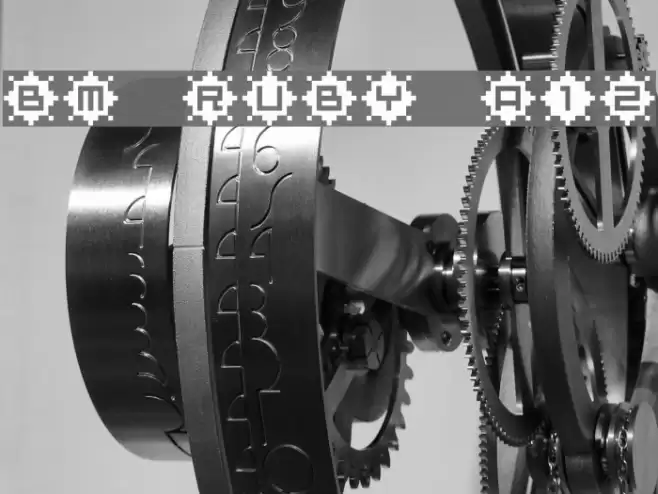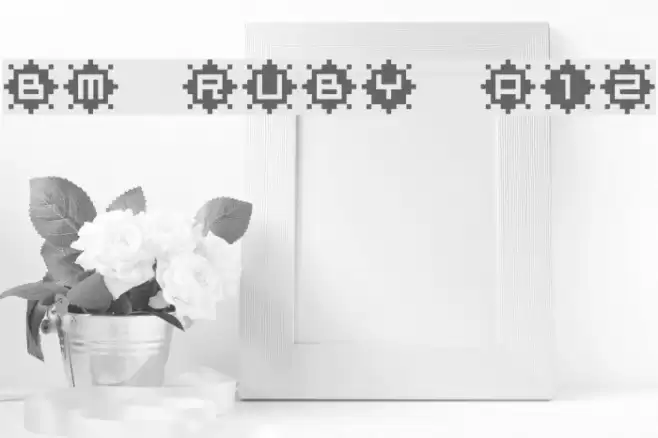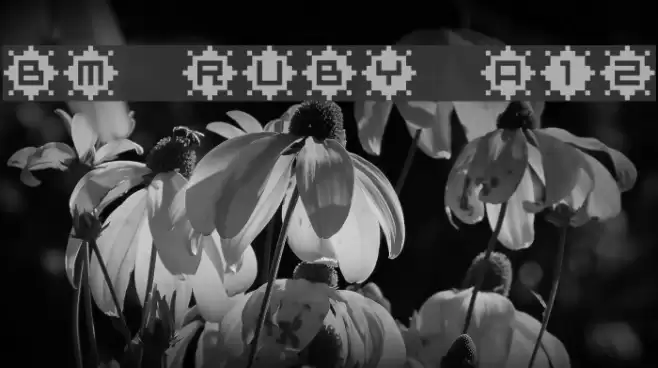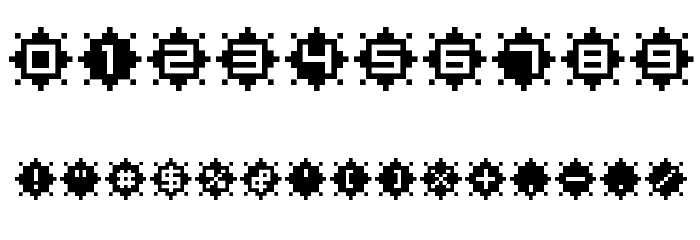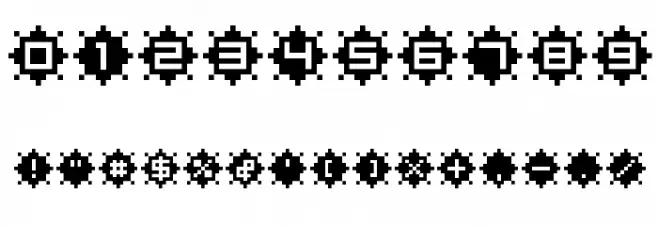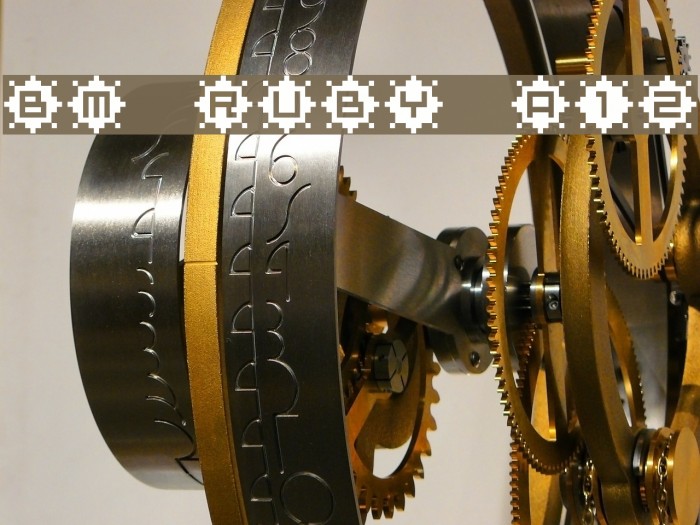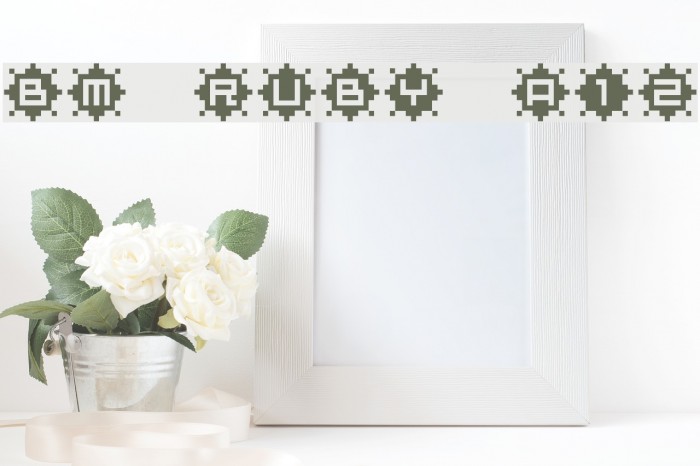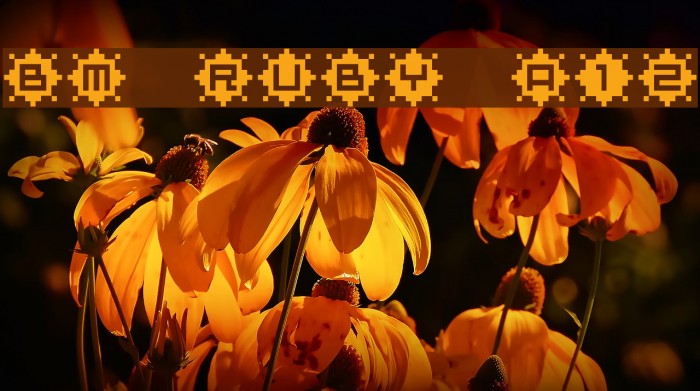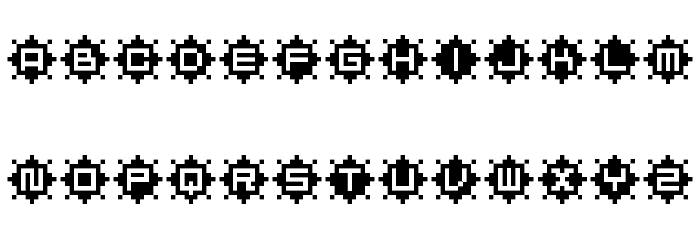
BM ruby A12 Font
BM ruby A12 Description
This font is a pixelated, decorative style that features characters enclosed within a circular, gear-like border. Each letter, number, and symbol is centered within this border, giving it a unique, mechanical appearance. The characters themselves are bold and blocky, reminiscent of early digital or arcade game aesthetics. The consistent use of the circular border around each character creates a uniform and cohesive look, making it stand out for specific design needs. The font's pixelated nature gives it a retro, nostalgic feel, suitable for projects that aim to evoke a sense of vintage digital design.
A pixelated, decorative font with characters enclosed in a gear-like border, evoking a retro digital feel from Uncategorized fonts.
- Proposed Projects: Ideal for video game design, retro-themed posters, digital art projects, or any creative work that benefits from a vintage digital aesthetic.
- Overall Style: Retro, Decorative
- Use Case: Logos, Posters, Game Design